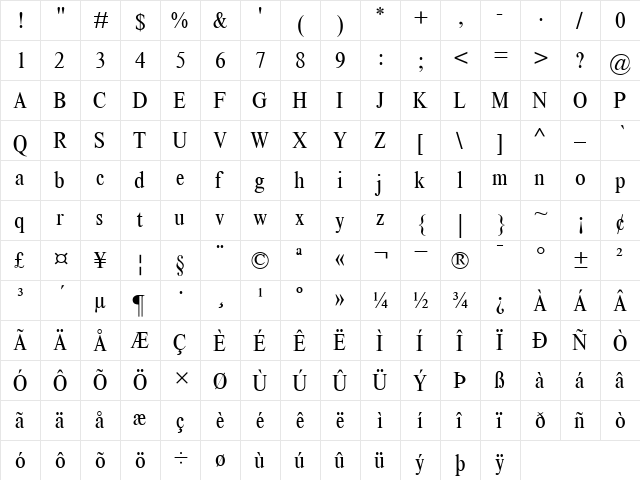
ThamesCondensed Regular
Design Context for ThamesCondensed Typeface
ThamesCondensed offers clean, dependable letterforms without strong stylistic allegiance, making it a practical choice for designers who need flexibility. The condensed width makes it efficient for tight spaces without sacrificing legibility.
Pro Tip: Use ThamesCondensed in both headline and body roles to test its range before committing to a single application.